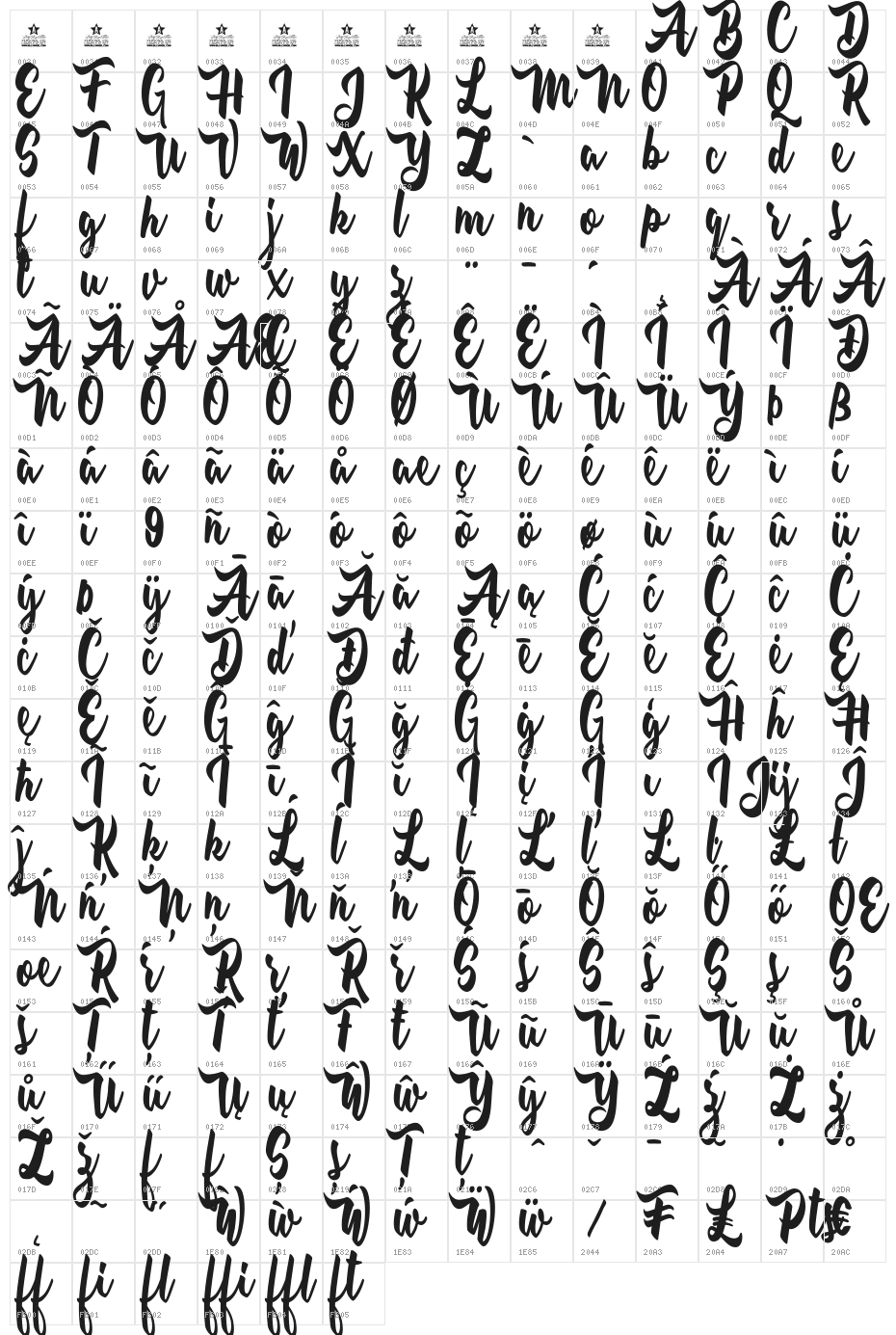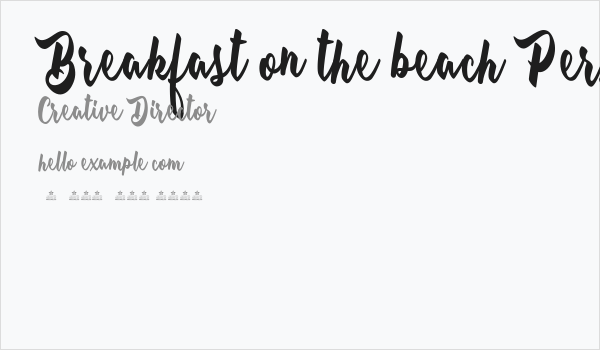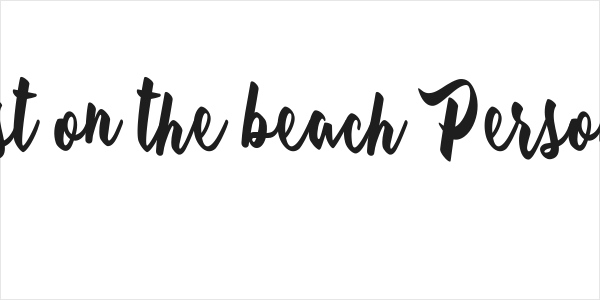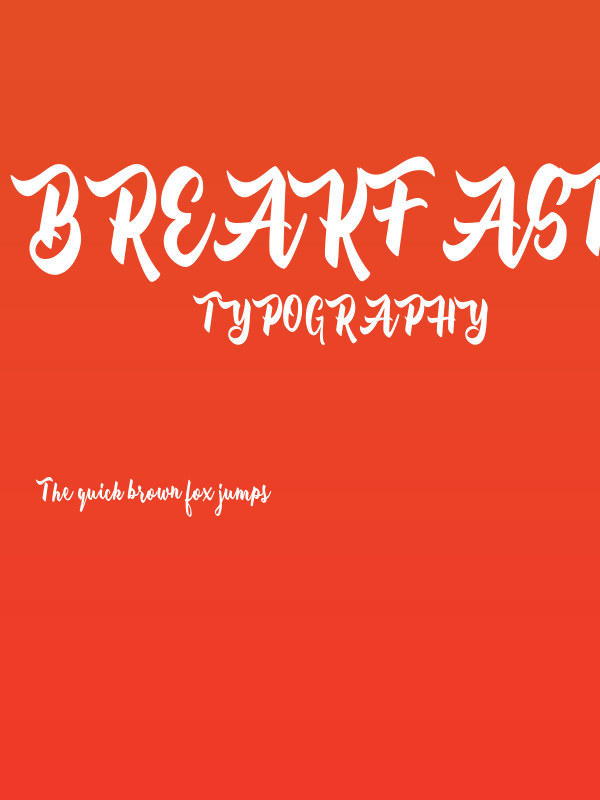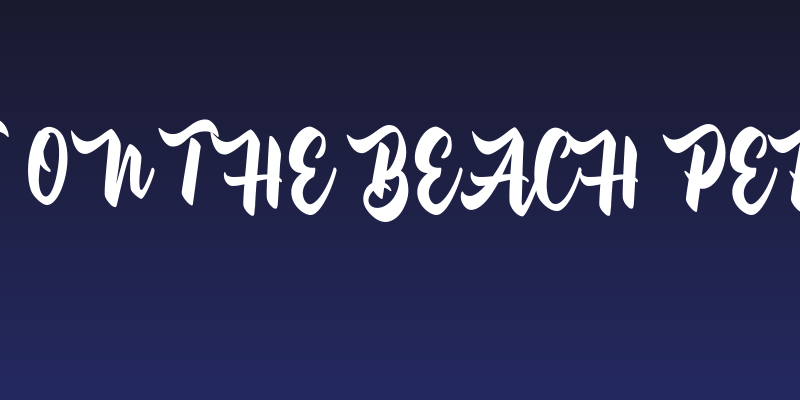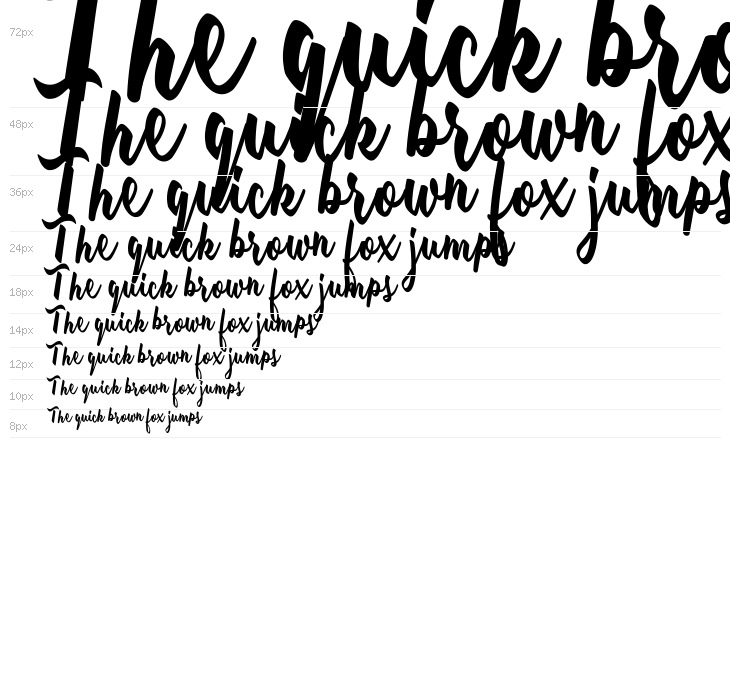
Breakfast on the beach Personal Use Font
Breakfast on the beach Personal Use Description
This font features a bold and expressive script style with a handwritten appearance. The letters are connected, creating a fluid and dynamic look. The uppercase letters have a playful and artistic flair, while the lowercase letters maintain a consistent flow. The strokes are thick, providing a strong presence, and the overall design is both elegant and casual. This font is ideal for projects that require a personal touch, such as invitations, greeting cards, and branding materials. The special characters are integrated seamlessly, maintaining the cohesive style of the font.
| Proposed Projects | Ideal for invitations, greeting cards, branding, and personal projects. |